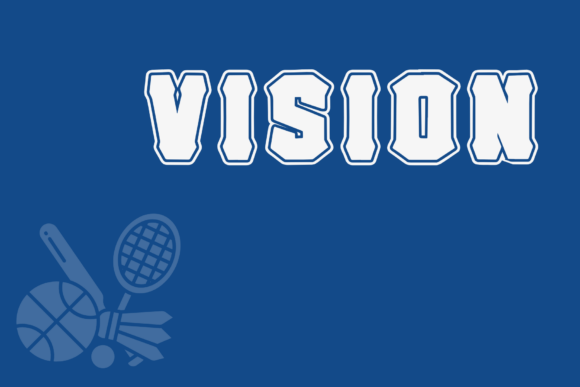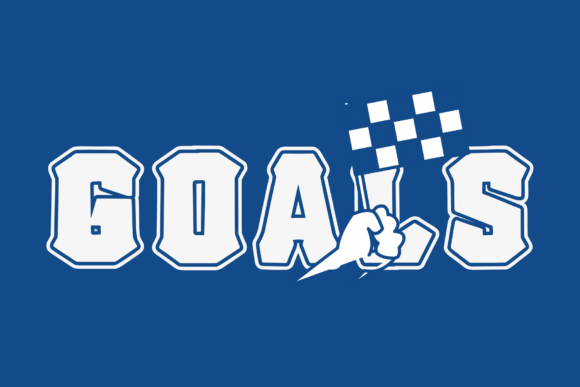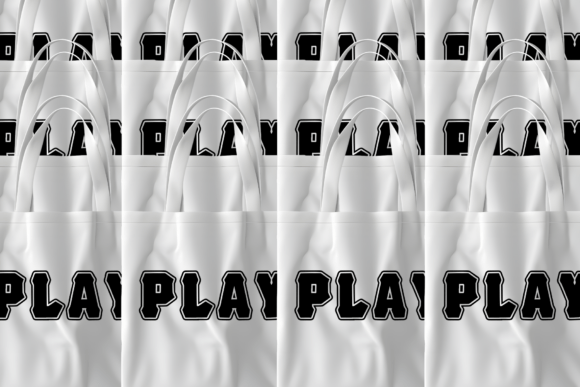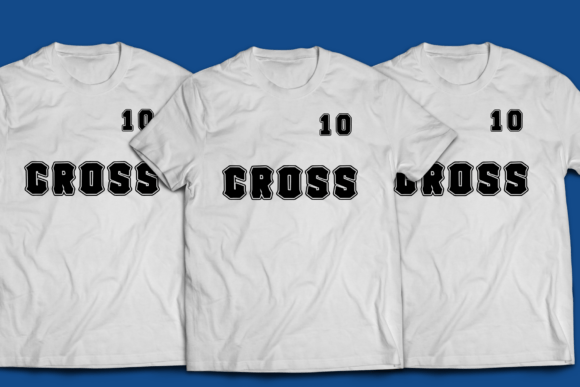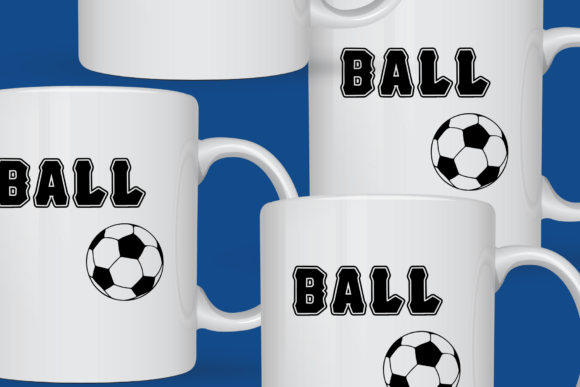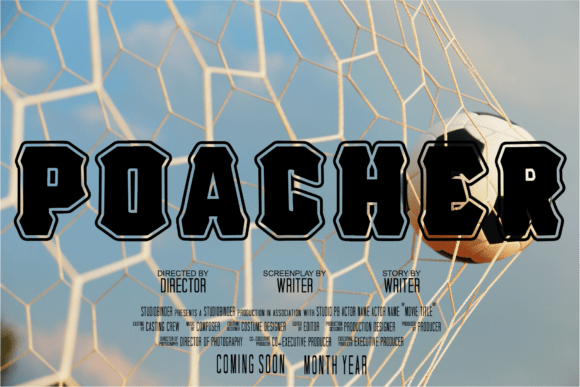
Meet Hell Forge College Font: The Ultimate Choice for Bold and Edgy Designs
Are you tired of using generic fonts that lack personality and edge? Look no further than Hell Forge College Font, a bold and industrial font that’s perfect for designers and crafters who want to add a touch of toughness to their work. With its unique blend of varsity energy and gritty texture, Hell Forge College Font is ideal for creating eye-catching designs that demand attention.
The Features of Hell Forge College Font
Hell Forge College Font boasts a range of features that make it the perfect choice for designers and crafters. Here are just a few of the key benefits:
- Bold and Upright Letters: The font features bold, upright letters that are easy to read, making it perfect for headlines and titles.
- Angled Cuts for Added Grit: The font’s angled cuts add a touch of grit and texture without compromising clarity, giving your designs a unique and edgy feel.
- Optimized for Headlines: The font’s spacing is optimized for headlines, making it easy to create fast and effective layouts for apparel, stickers, banners, and thumbnails.
Where Hell Forge College Font Shines
Hell Forge College Font is perfect for a wide range of design applications, from sports teams and clubs to pep rallies and game days. Here are just a few examples of where this font shines:
- Punchy Phrases: Use Hell Forge College Font to set punchy phrases like “Game Day”, “Forge Pride”, or city initials that demand attention.
- Classic Patches: Pair the font with stitch edges, outline layers, or soft shadows to echo classic patches and add a touch of nostalgia to your designs.
- Vinyl Cuts and Screen Prints: The font’s sturdy forms ensure that vinyl cuts and screen prints stay crisp on jerseys, caps, and hoodies, making it perfect for creating custom apparel.
Here are just a few benefits of using Hell Forge College Font:
- Clean Paths: The font’s clean paths make it easy to create decals, engraving, and embroidery-friendly mockups that look sharp and professional.
- Compact Build: The font’s compact build fits tight spaces like sleeve labels and other small areas, making it perfect for creating custom designs for apparel and accessories.
Hell Forge College Font is perfect for designers and crafters who want to add a touch of edge and personality to their work. Whether you’re creating custom apparel for sports teams, designing stickers and banners for events, or crafting unique accessories for everyday wear, this font has got you covered.
Here are just a few reasons why designers and crafters love Hell Forge College Font:
- Unique and Edgy: The font’s unique blend of varsity energy and gritty texture makes it perfect for designers and crafters who want to add a touch of edge to their work.
- Versatile: The font is perfect for a wide range of design applications, from sports teams and clubs to pep rallies and game days.
In conclusion, Hell Forge College Font is the ultimate choice for designers and crafters who want to add a touch of bold and edgy personality to their work. With its unique features, versatility, and ease of use, this font is sure to become a favorite in your design arsenal.